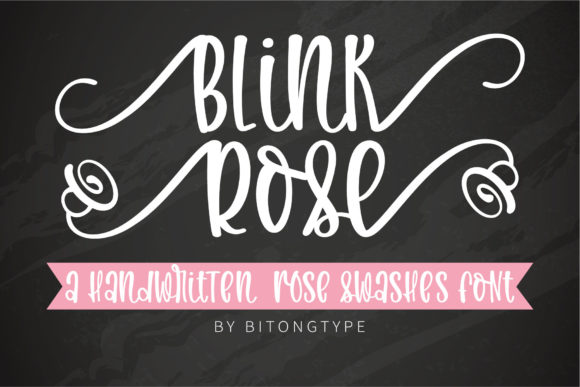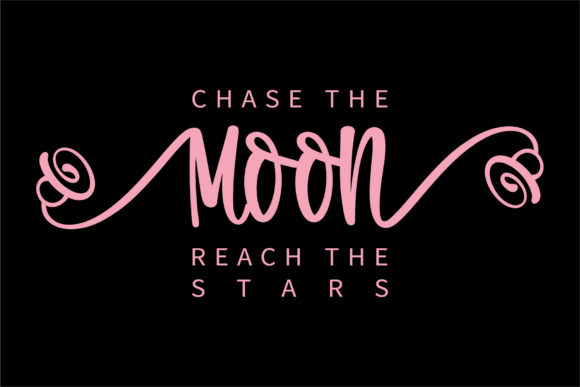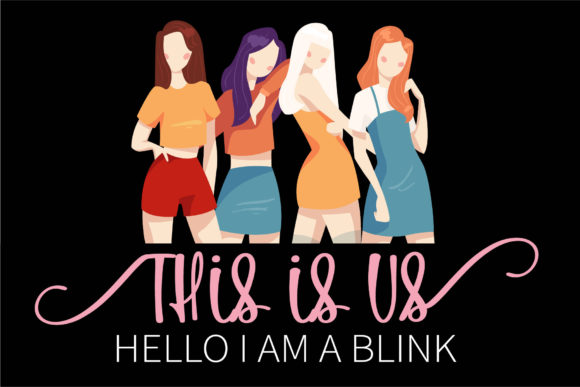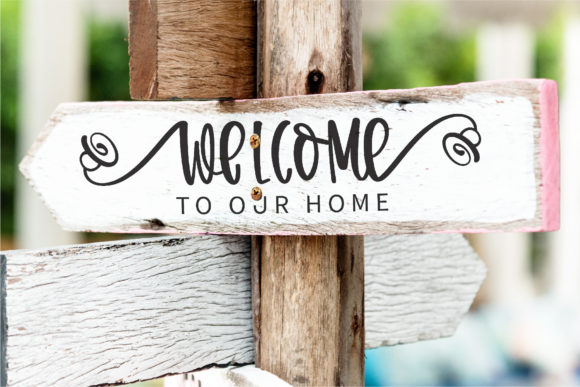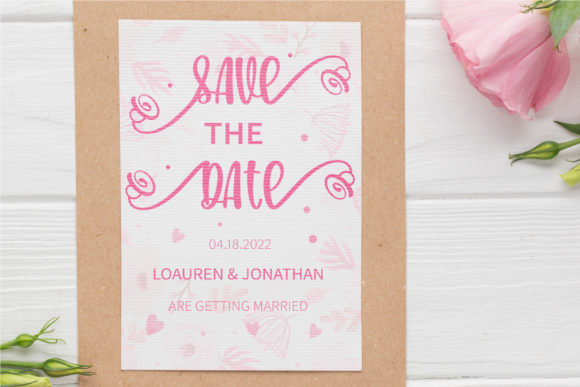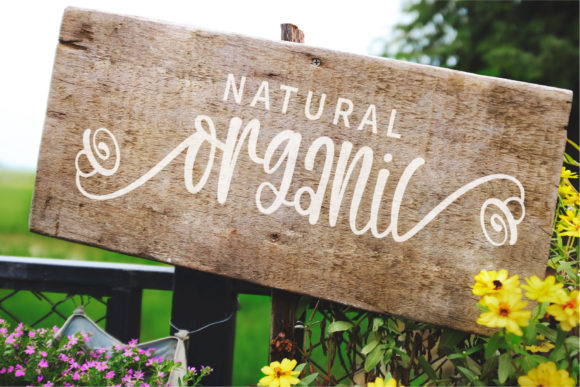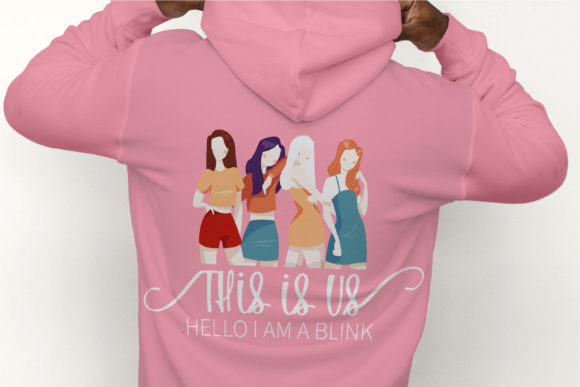
Blink Rose Font
About Blink Rose Font
Blink Rose is a sweet, friendly and jolly handwritten font, featuring a lovely style. No matter the topic, this font will be an incredible asset to your fonts’ library, as it has the potential to elevate any creation.